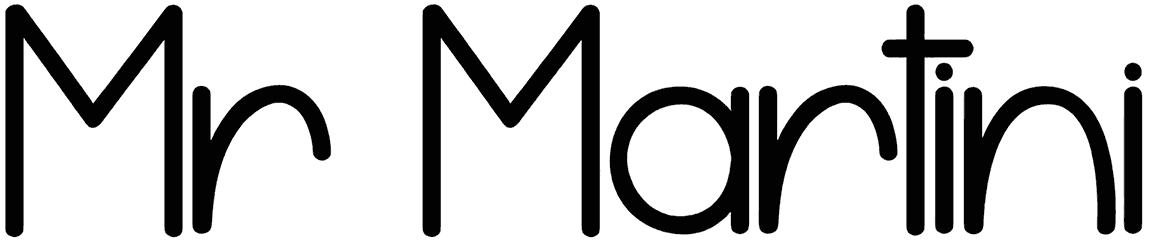
Mr Martini Font
Would you desire to bring a minimal and sweet vibe to your context? This sans serif font, with its slim and modest style, is capable of doing it. Mr Martini font doesn’t offer numerals, but even without them, it could be…
Would you desire to bring a minimal and sweet vibe to your context? This sans serif font, with its slim and modest style, is capable of doing it. Mr Martini font doesn’t offer numerals, but even without them, it could be an appealing choice for lots of creative ideas like planners, apparel, mugs, posts, and so forth.